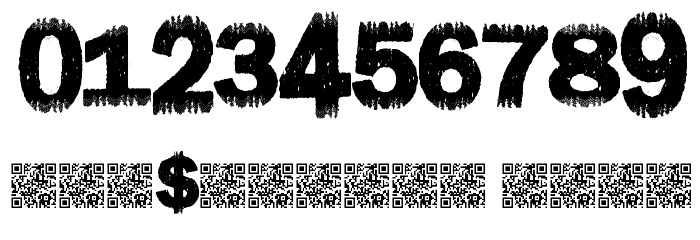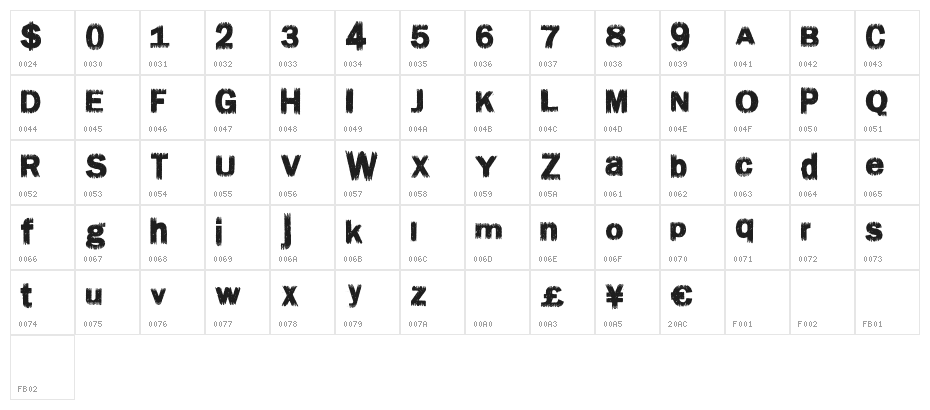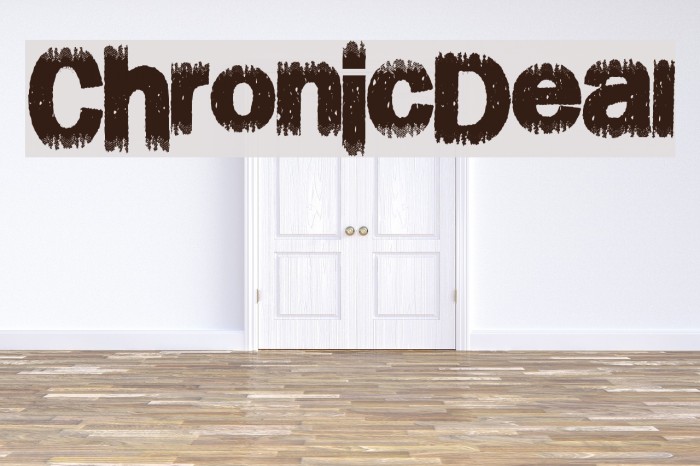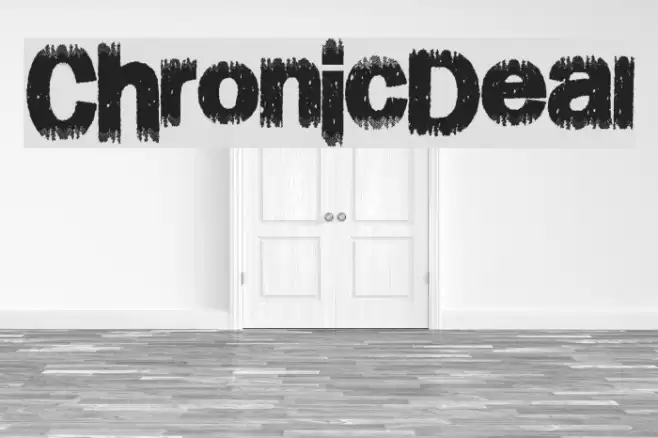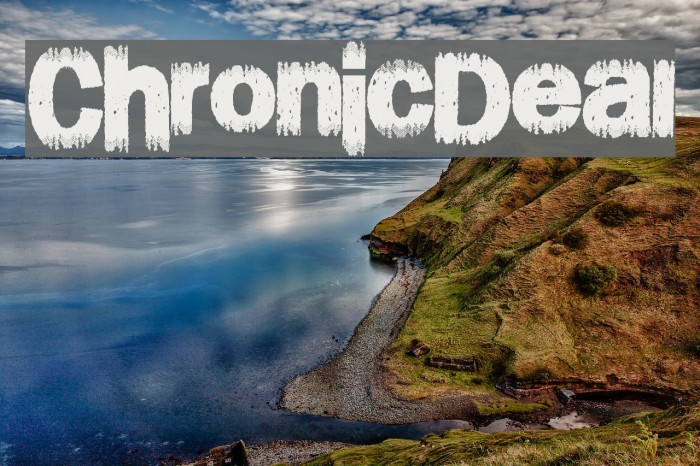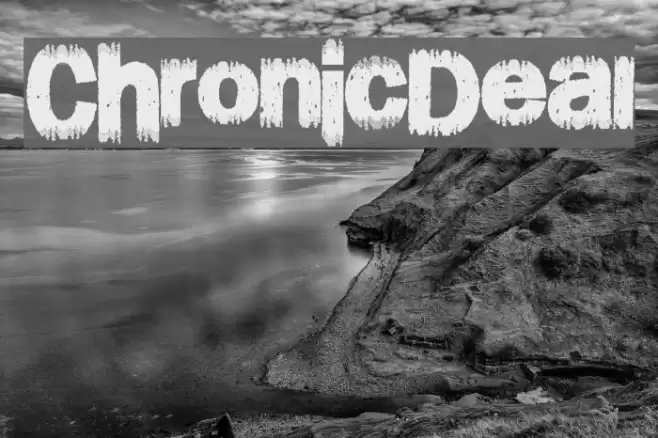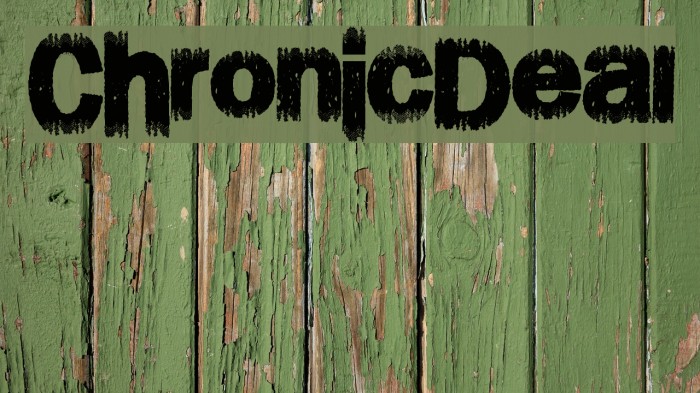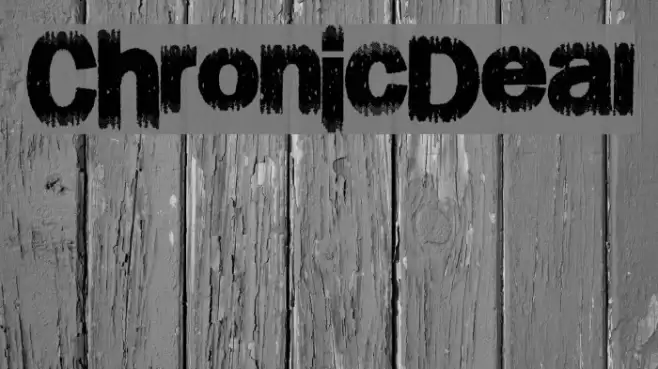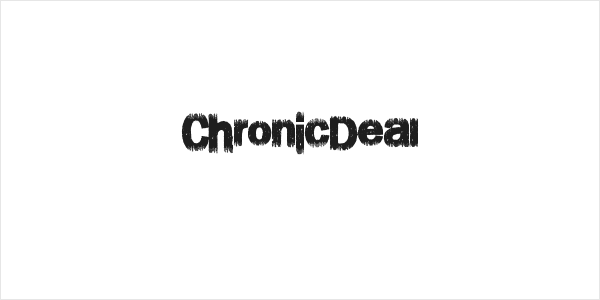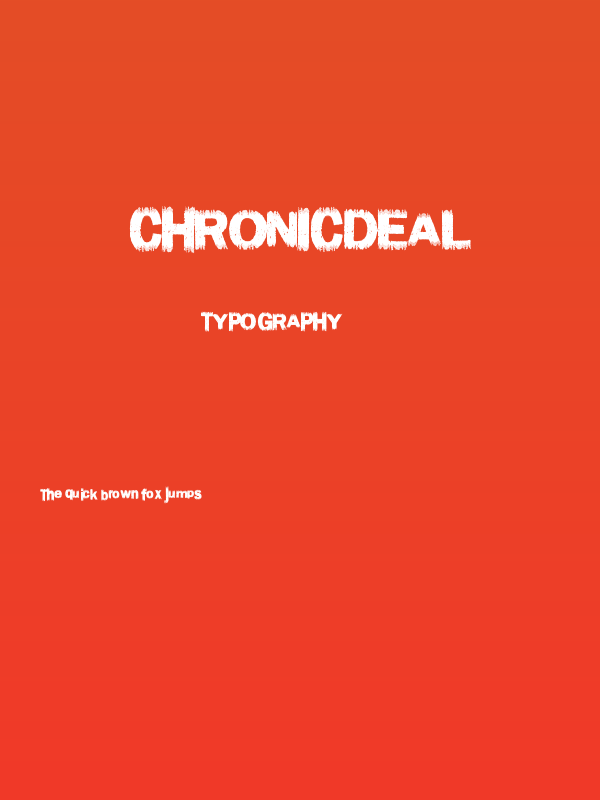
ChronicDeal Font
ChronicDeal Description
This font features a bold, distressed style with a rough, textured appearance that gives it a grunge or urban feel. The characters are thick and heavy, with irregular edges that create a sense of movement and energy. This style is reminiscent of worn-out or weathered surfaces, making it ideal for designs that require a rugged or edgy look. The uppercase and lowercase letters maintain a consistent weight, while the numbers and special characters follow the same distressed pattern, ensuring uniformity across all elements.
| Overall Style | Grunge, Urban |
| Proposed Projects | Ideal for music album covers, streetwear branding, posters, and event flyers that require an edgy, urban aesthetic. |